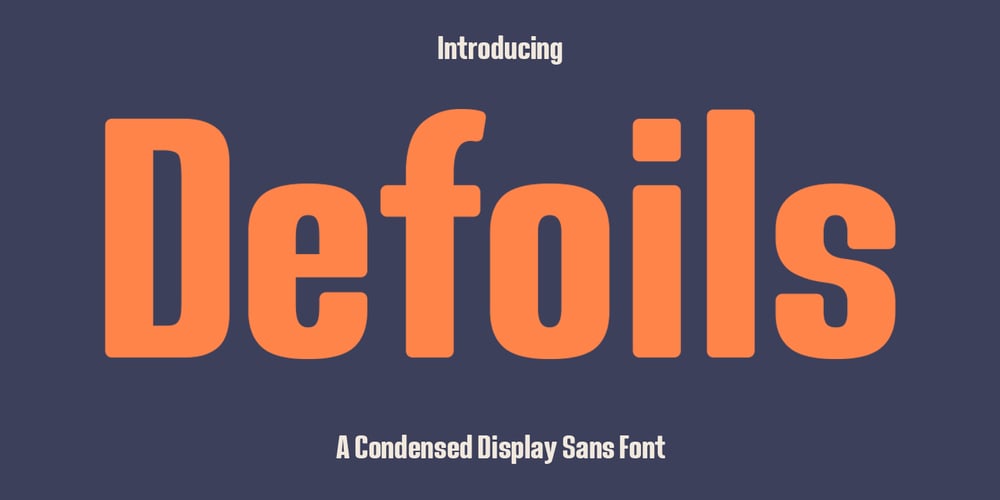
MC Defoils Font Family was designed by Gilang Maulana and published by Maulana Creative. MC Defoils contains 1 styles and family package options. Defoils is a classic sans serif font. With medium stroke, fun character with a bit of ligatures and alternates. To give you an extra creative work. Defoils font support multilingual more than 100+ language. This font is good for logo design, Social media, Movie Titles, Books Titles, a short text even a long text letter and good for your secondary text font with script or serif. Make a stunning work with Defoils font. Cheers, Maulana Creative